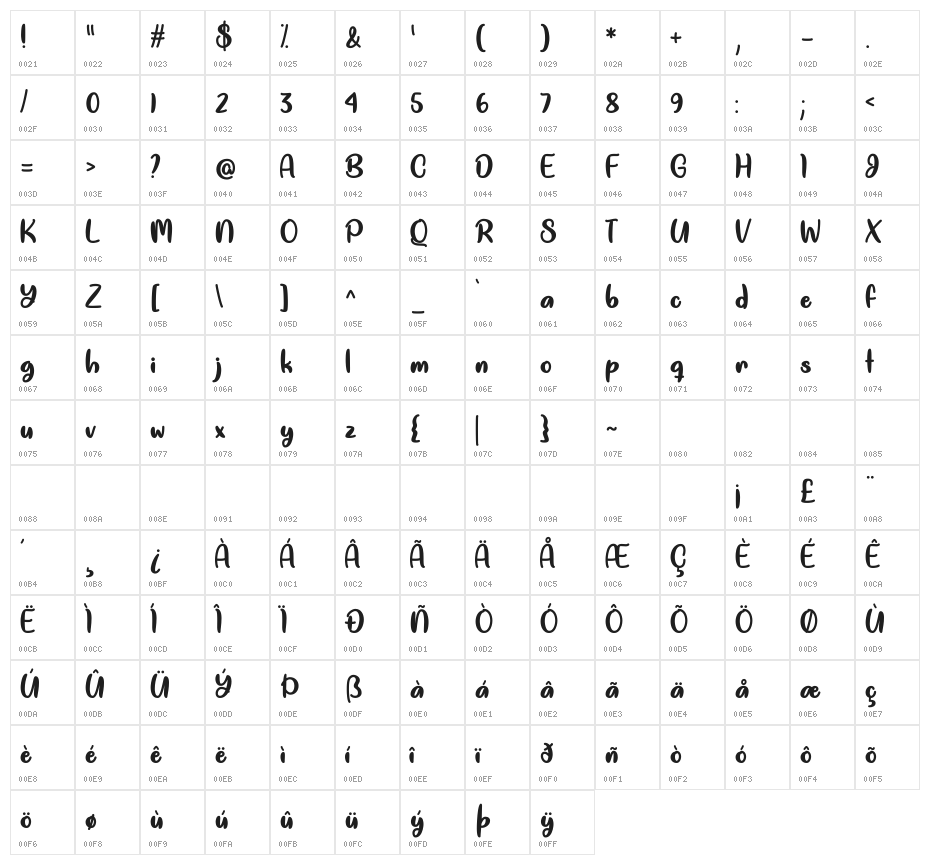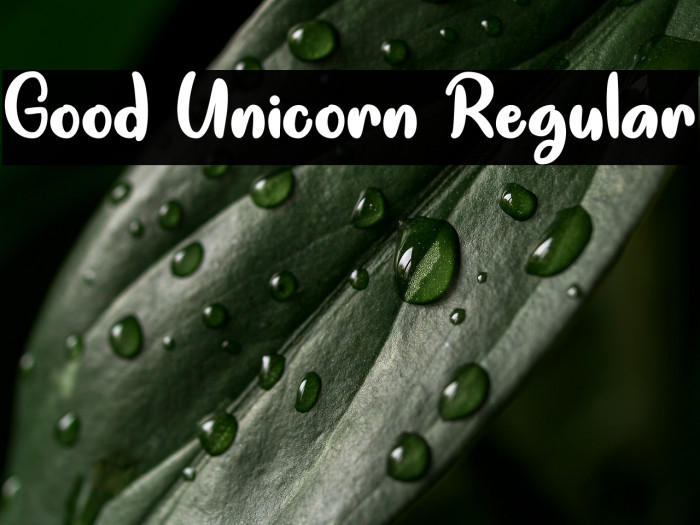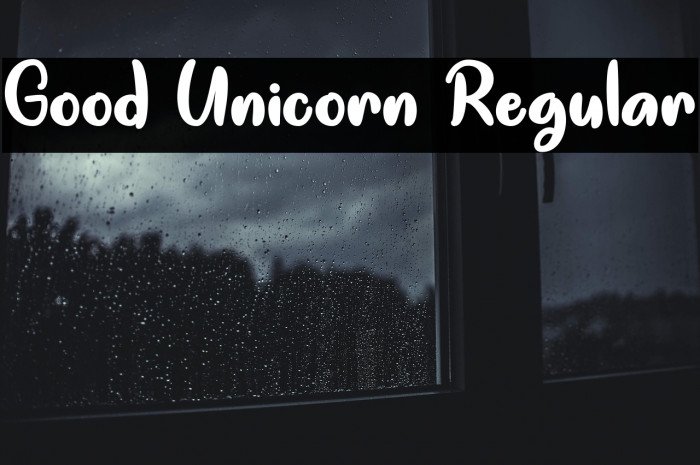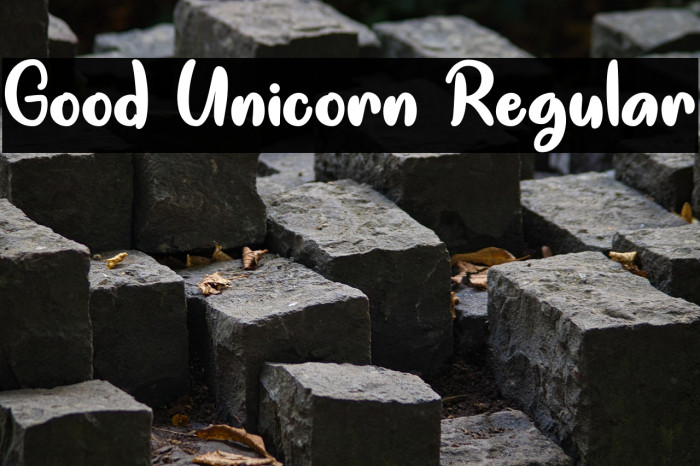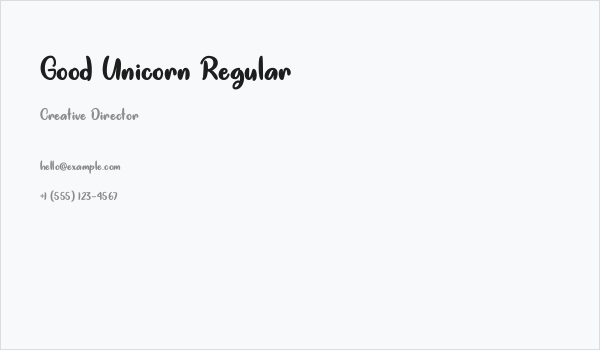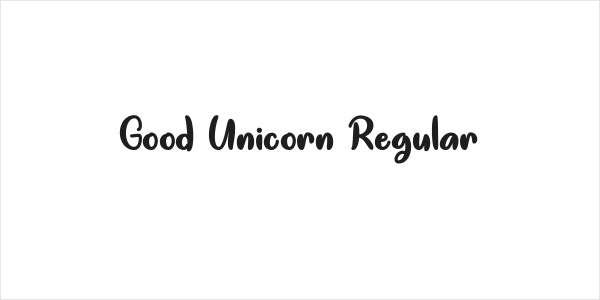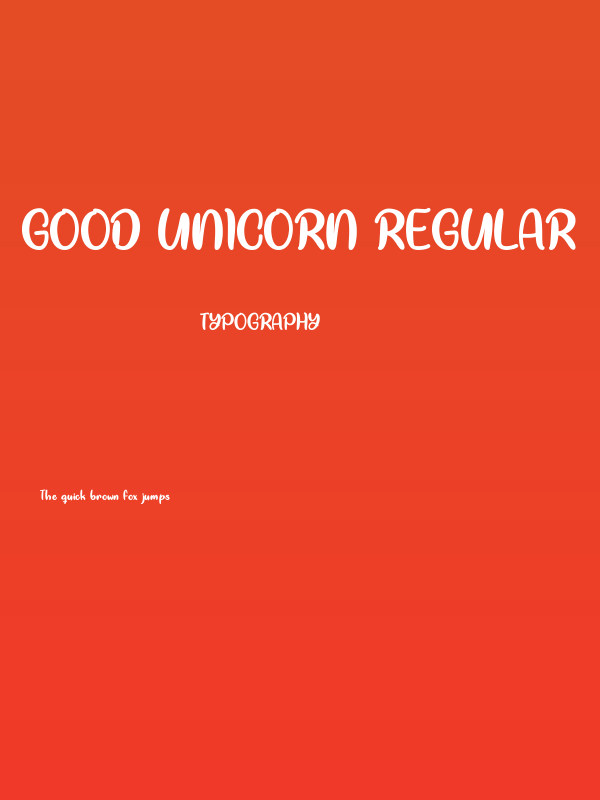
Good Unicorn Regular Font
Good Unicorn Regular Description
This playful and whimsical font features bold, rounded characters with a handwritten style. The uppercase letters are slightly larger and more pronounced, while the lowercase letters maintain a consistent flow with a charming, casual appearance. The numbers and special characters are designed to complement the overall style, making them suitable for various creative applications. The font's strokes are consistent in thickness, providing a smooth and cohesive look. Its friendly and approachable design makes it ideal for projects that require a touch of personality and fun.
| Proposed Projects | Ideal for children's books, greeting cards, playful branding, and social media graphics. |